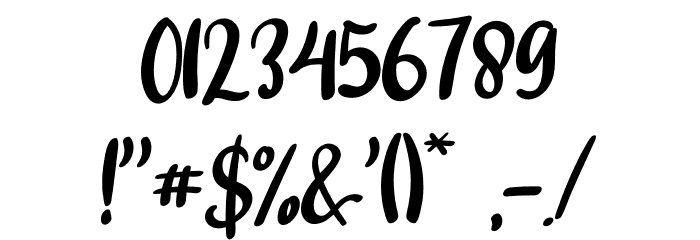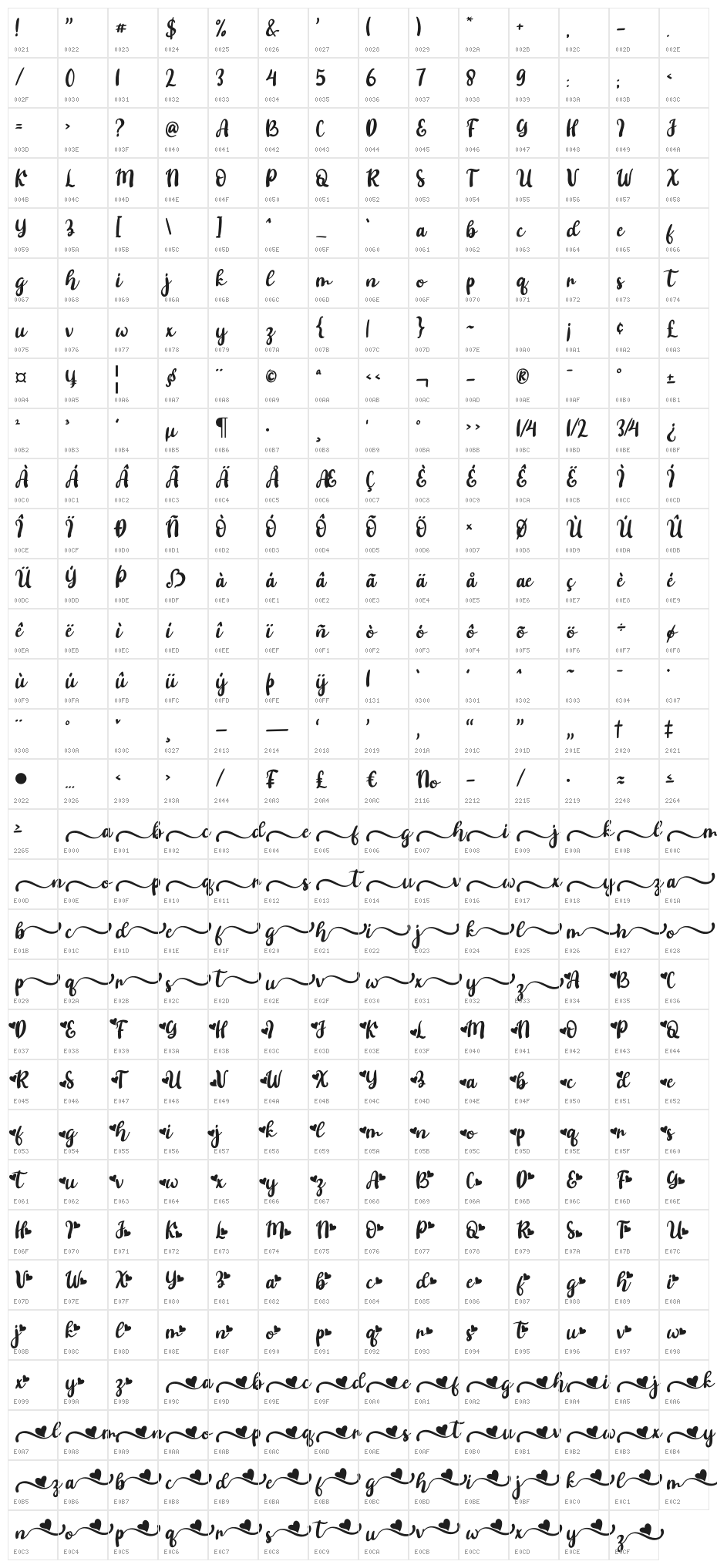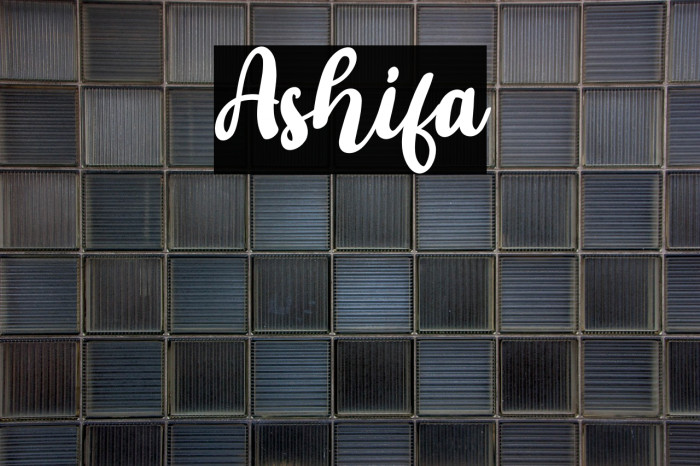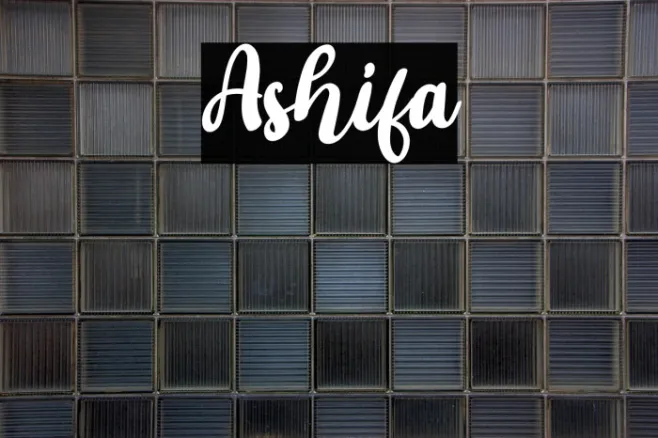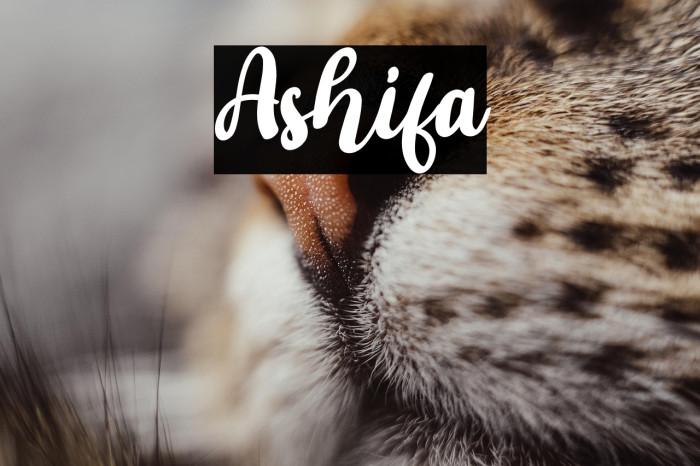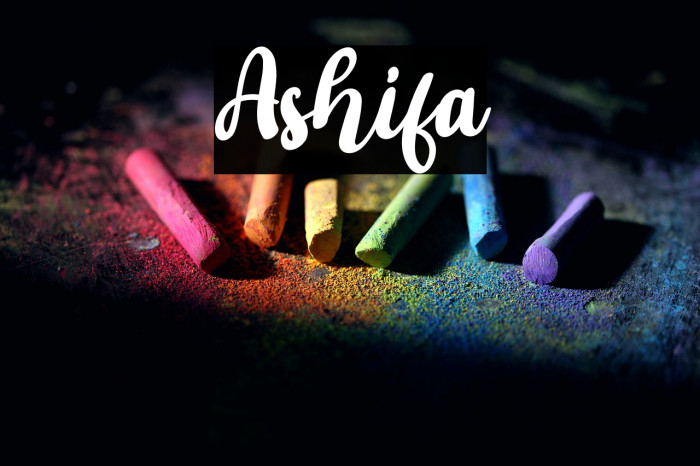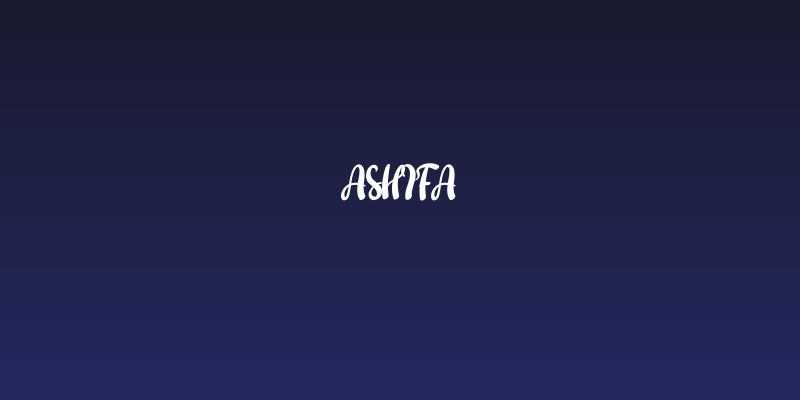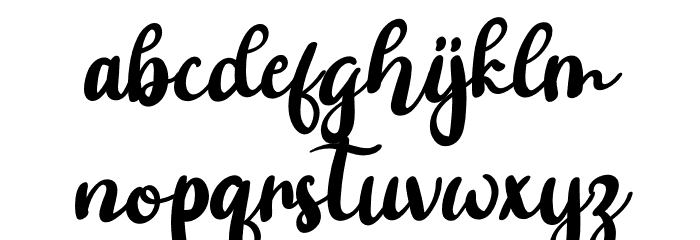
Ashifa Font
Ashifa Description
This font features a bold, flowing script style with a handwritten appearance. The characters are connected, giving it a cohesive and elegant look. The uppercase letters are slightly larger and more pronounced, while the lowercase letters maintain a consistent flow. The numbers and special characters are designed to match the overall style, with smooth curves and a playful touch. The font exudes a sense of creativity and personal touch, making it suitable for projects that require a personal or artistic flair.